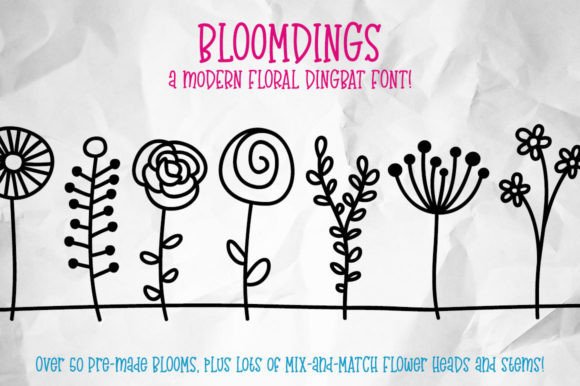
The Bloomdings Font: A Modern Abstract Flower Powerhouse
Have you ever been in the middle of a design project, and suddenly, you just can’t find the right font to bring your vision to life? I certainly have! It was during one of those moments that I stumbled upon the Bloomdings font, and let me tell you, it’s been a total game-changer. As a designer, I’m always on the lookout for unique and versatile fonts that can help me create stunning visuals. Bloomdings is a dingbat font that features modern abstract flowers, and I’m excited to share my experience with you.
A Personal Design Moment: The Struggle is Real
I was working on a project for a client who wanted a whimsical and floral design. I had a clear idea of what I wanted to create, but I just couldn’t find the right font to match. I spent hours scouring the internet, but nothing seemed quite right. That’s when I discovered Bloomdings, and it was like a breath of fresh air. The font includes over 50 completed flowers and floral elements, plus individual parts that allow you to mix and match to create the perfect flowers for your project.
So, what do I love about Bloomdings? Here are a few things that stood out to me:
- ✨ Easy to use: The font is mapped to regular keyboard keys, so you don’t need any additional programs to use them. Just type and go!
- ✅ Versatile: With over 50 completed flowers and floral elements, plus individual parts, you can create a wide range of designs.
- 🌼 Beautifully designed: The flowers and floral elements are stunningly designed, with a modern and abstract feel.
And, like any font, there are a few small quirks to be aware of:
- 🤔 Learning curve: With so many different flowers and elements, it may take some time to get familiar with the font and learn which keys correspond to each one.
- ⚠️ Limited editing capabilities: As with any dingbat font, you may find that editing the text can be a bit tricky.
The Designer Inspiration Behind Bloomdings
While I couldn’t find any information on the designer behind Bloomdings, it’s clear that they were inspired by the beauty of nature and the world of flowers. The font is a stunning example of modern abstract design, and it’s perfect for designers, crafters, and creative hobbyists who want to add a touch of elegance and whimsy to their projects.
| Q: How many flowers and floral elements are included in Bloomdings? | A: Bloomdings includes over 50 completed flowers and floral elements, plus individual parts. |